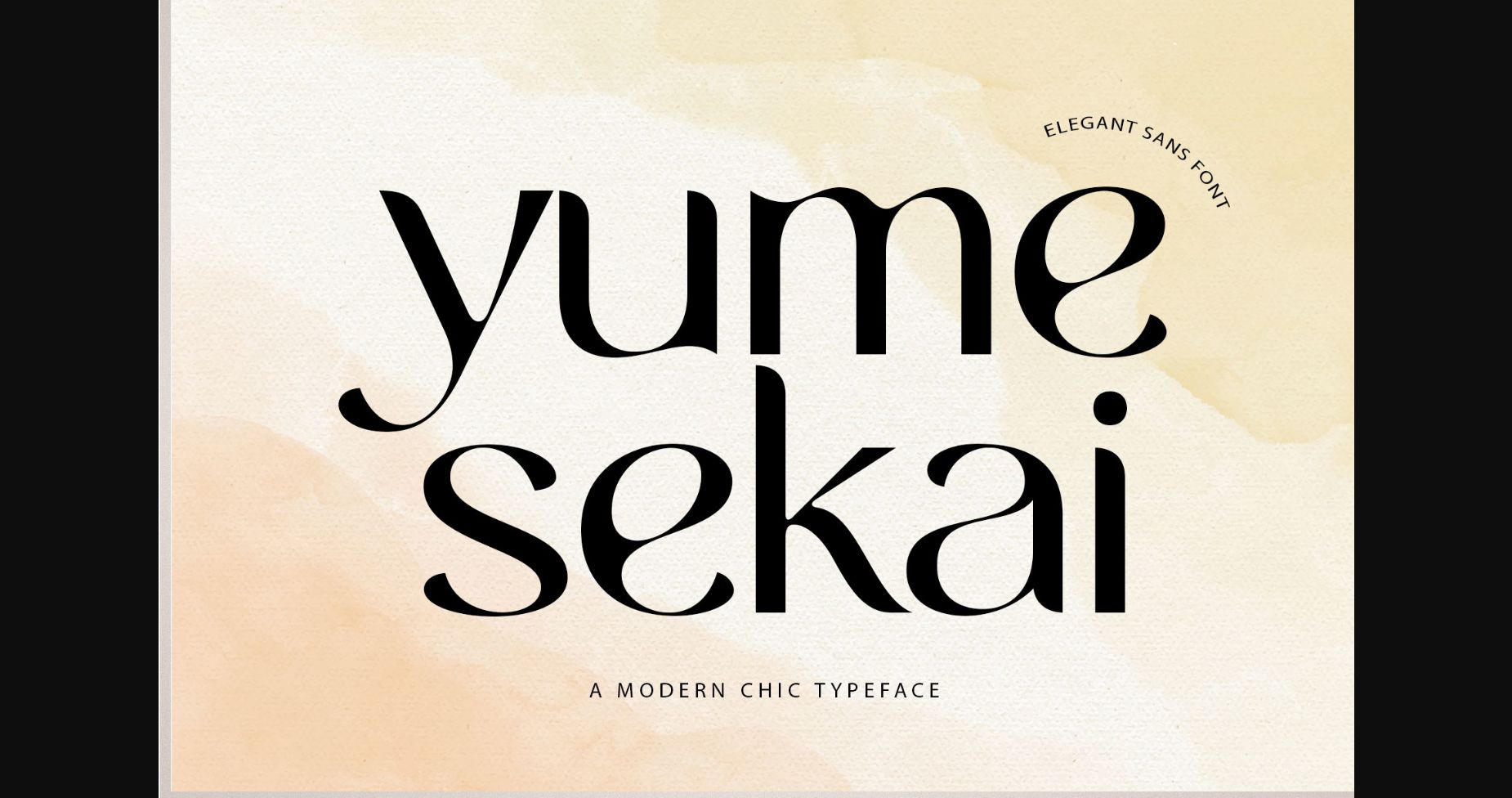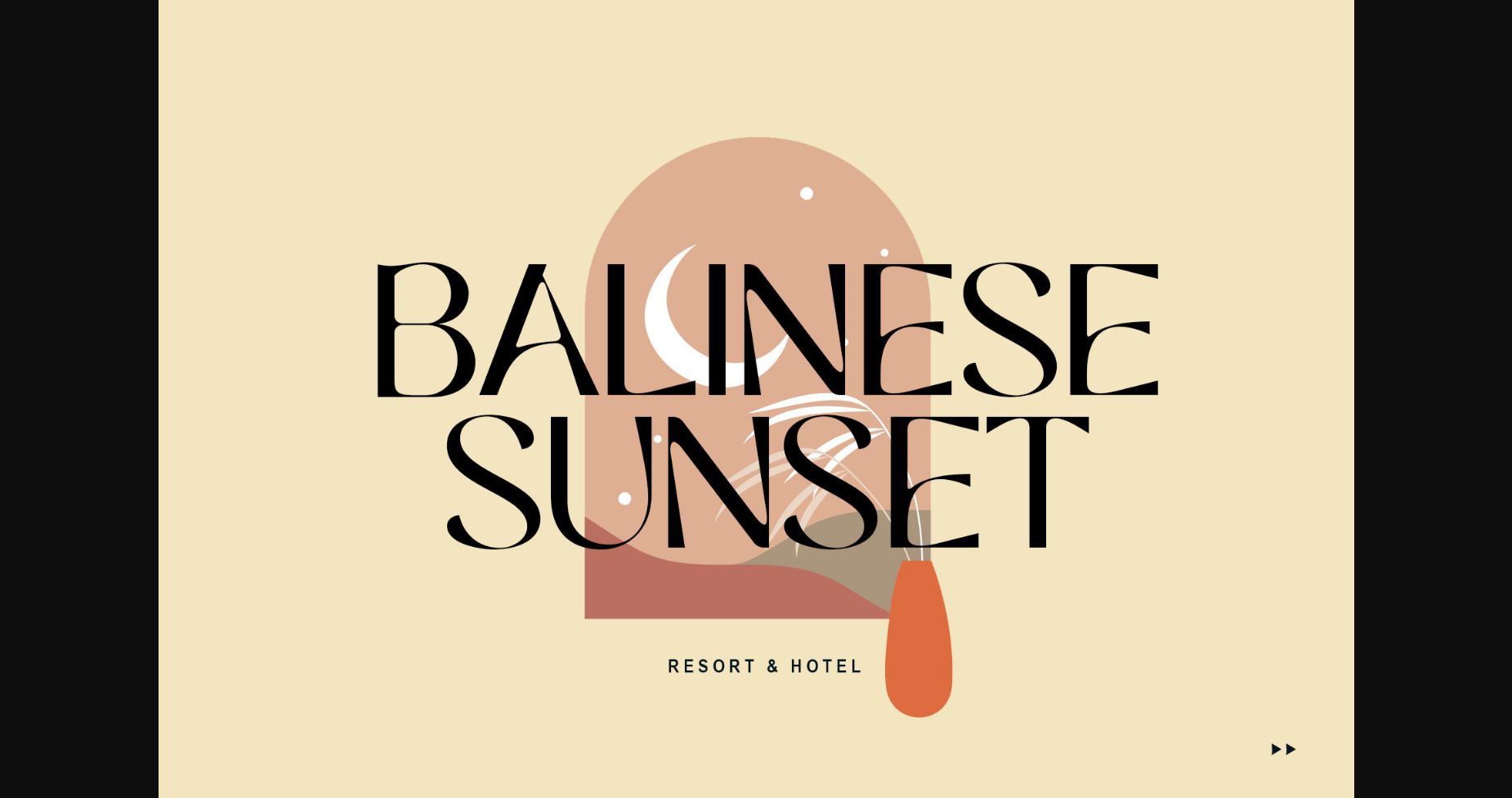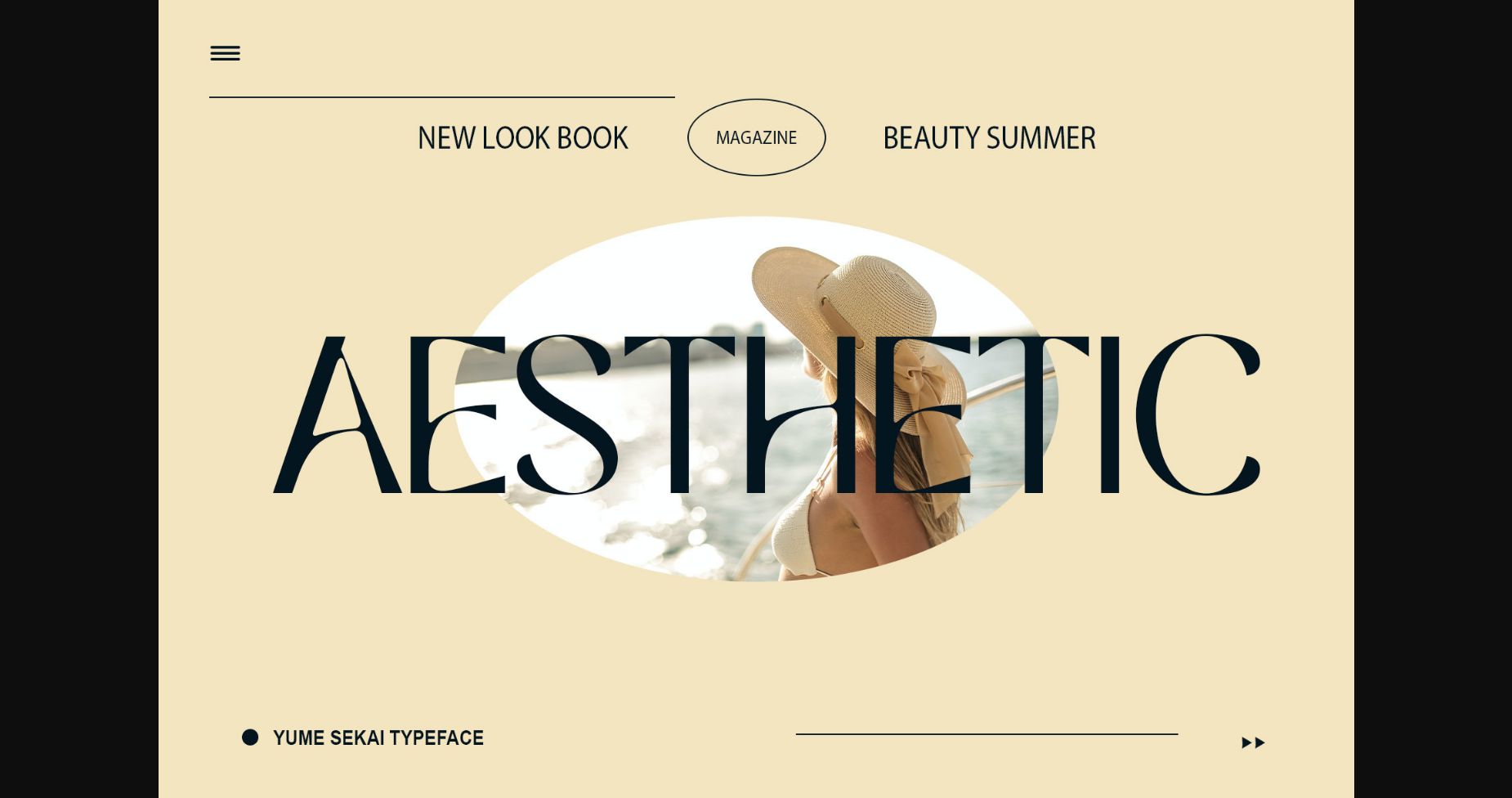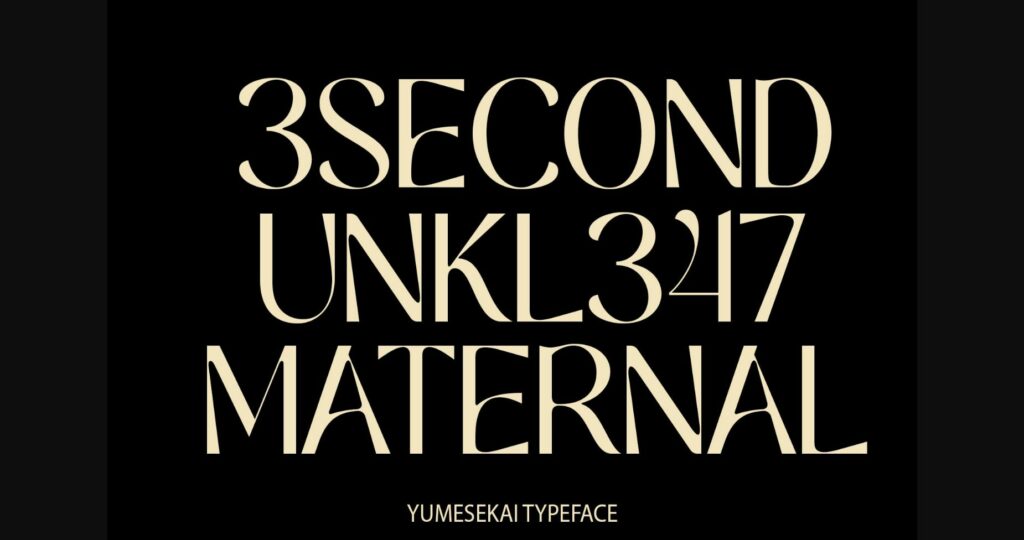
About Yumesekai Font
Yume Sekai is a cool and vintage styled sans serif font.
It is perfect for many different projects such as logos & branding, invitation, stationery, wedding designs, social media posts, advertisements, printed quotes, product packaging, product designs, label, photography, watermark, special events or anything.